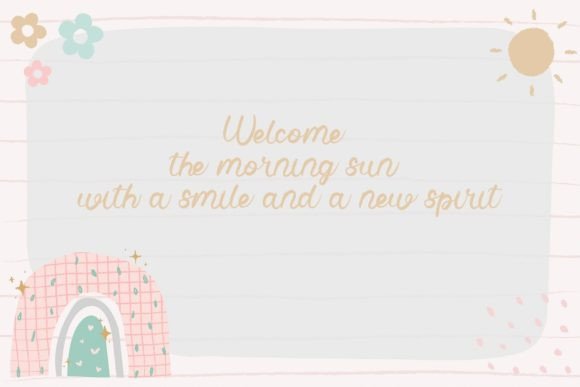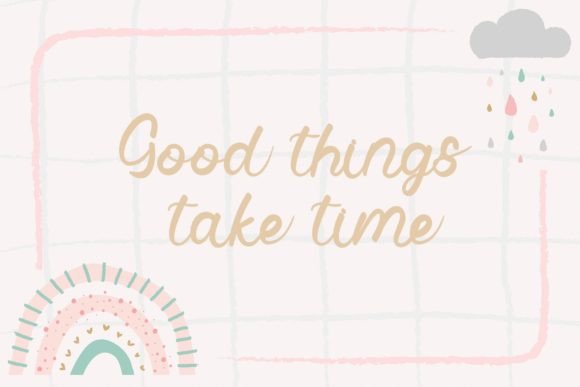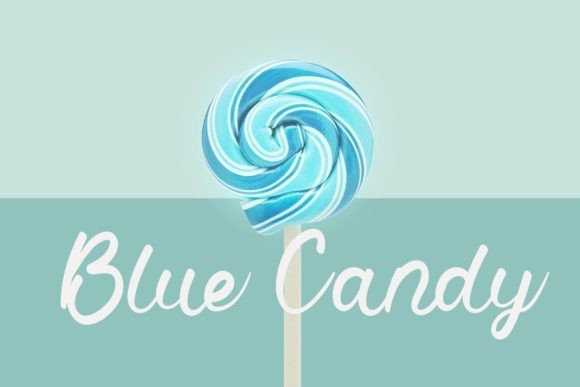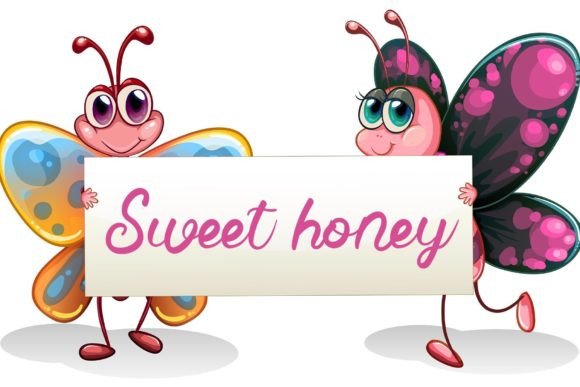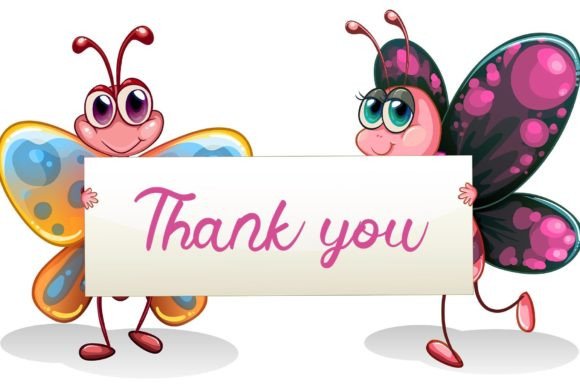
Birthday Rainbow Font
About Birthday Rainbow Font
“Birthday Rainbow” is a delightful and friendly handwritten font that brings a sense of joy and playfulness to your design projects. Its fun and lively character make it a perfect choice for adding a cheerful and vibrant touch to various creative endeavors. Whether you’re working on birthday invitations, greeting cards, party posters, children’s books, or any other celebratory design, “Birthday Rainbow” turns your ideas into true standouts with its unique charm.
The font’s playful and friendly style creates an inviting and warm atmosphere. Its whimsical and spontaneous strokes evoke a sense of happiness and creativity, making your text appear lively and full of energy. “Birthday Rainbow” is designed to capture the essence of celebrations, making it an ideal choice for projects related to birthdays, parties, and festivities.
One of the strengths of “Birthday Rainbow” is its ability to infuse your designs with a sense of fun and positivity. Its handwritten charm adds authenticity, making your designs feel personal and heartwarming. The font’s versatility allows it to adapt to different themes and age groups, making it suitable for both children and adults.
By incorporating “Birthday Rainbow” into your projects, you’re infusing them with a sense of joy and creativity. Its fun and friendly handwritten style add a touch of playfulness, making your designs visually appealing and engaging. Whether you’re a graphic designer, a party planner, or an individual organizing a celebration, “Birthday Rainbow” offers you a delightful font choice to bring your creative ideas to life and create designs that radiate happiness and charm.